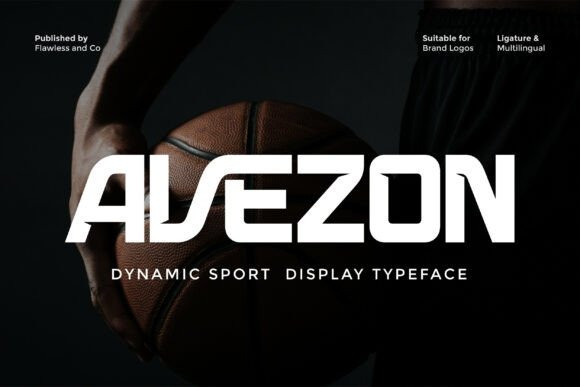
Avezon Font
Avezon Font is a powerful sport display font designed to bring speed, strength, and winning energy into every visual identity. With its sharp angles, bold construction, and dynamic flow, Avezon immediately commands attention — making every word look fast, fierce, and unstoppable.
Whether used in professional sports branding or high-impact promotional graphics, this font delivers a look that feels competitive, fearless, and built to win.